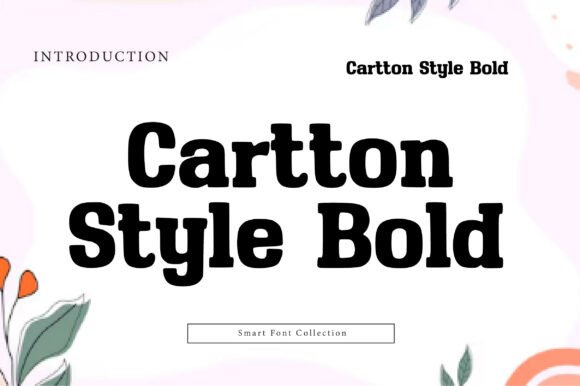
Unleash Your Creativity with Cartton Style Bold Font
Have you ever been in the middle of a design project, and suddenly, you’re stuck on finding the perfect font? I recall a recent experience where I was working on a children’s branding project, and I needed a font that could convey fun, energy, and a sense of playfulness. That’s when I stumbled upon the Cartton Style Bold Font, and it completely transformed my design. In this article, we’ll dive into the world of Cartton Style Bold Font, exploring its features, uses, and some valuable tips on how to make the most of it.
A Personal Review: What I Love About Cartton Style Bold Font
Here’s what makes Cartton Style Bold Font a standout in my book:
- ✨ Thick, punchy, and playful: The font’s heavy, rounded letterforms are perfect for creating eye-catching headlines that demand attention.
- ✅ Perfect for kids’ branding and toy packaging: The font’s youthful spirit and energetic vibe make it an ideal choice for projects targeting a younger audience.
- 🎉 High-impact social media graphics: Cartton Style Bold Font is a powerhouse for creating engaging social media graphics that are sure to stop scrollers in their tracks.
While Cartton Style Bold Font is an amazing typeface, there are a few things to keep in mind:
- 🤔 Legibility at small sizes: Due to its bold and chunky structure, the font may not be the best choice for body text or small font sizes.
- ⚠️ Pairing with other fonts: Cartton Style Bold Font can be quite dominant, so it’s essential to choose complementary fonts that won’t compete with it.
One of the exciting features of Cartton Style Bold Font is its OpenType features and glyphs. These allow you to add more variety and personality to your text. Some common OpenType features include:
- Stylistic alternates: These offer alternative versions of letters, which can add more visual interest to your text.
- Glyphs: These are special characters, such as ligatures, ornaments, and swashes, that can enhance your design.
The Cartton Style Bold Font was designed with the intention of capturing the playful, exaggerated spirit of classic animation and street-style graphics. The designer aimed to create a typeface that would bring fun, energy, and a sense of youthful enthusiasm to any design project. By combining bold, rounded letterforms with a dash of playfulness, Cartton Style Bold Font was born.
| Font Name | Cartton Style Bold Font |
| Author | Wow Magic |
| What is Cartton Style Bold Font best used for? | Cartton Style Bold Font is perfect for kids’ branding, toy packaging, high-impact social media graphics, and any project that requires a bold, playful, and energetic font. |
| Is Cartton Style Bold Font available in different weights or styles? | Currently, Cartton Style Bold Font is available as a bold, display font. However, the font family may be expanded in the future to include additional weights or styles. |
In conclusion, Cartton Style Bold Font is an incredible typeface that can add a spark of fun and energy to your designs. With its bold, playful personality and versatility, it’s perfect for a wide range of projects, from kids’ branding to high-impact social media graphics. By following the tips and guidelines outlined in this article, you’ll be well on your way to creating stunning designs that showcase the best of Cartton Style Bold Font.